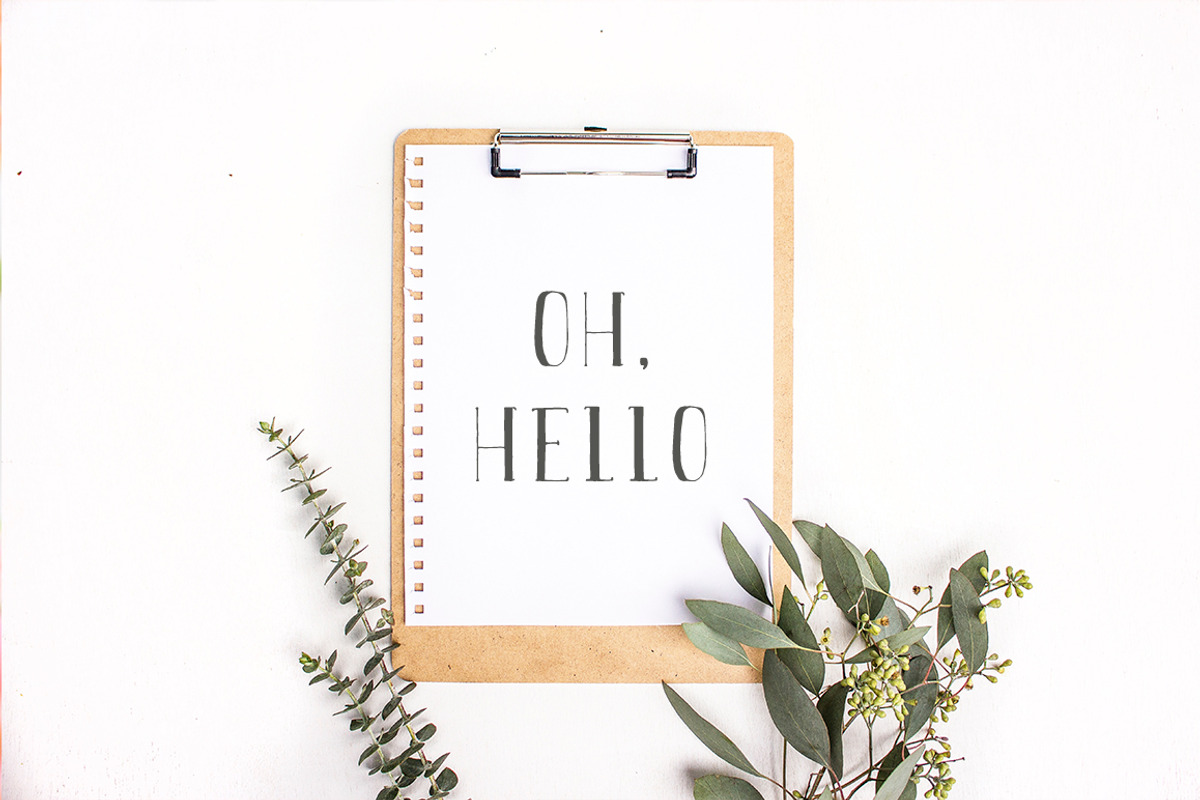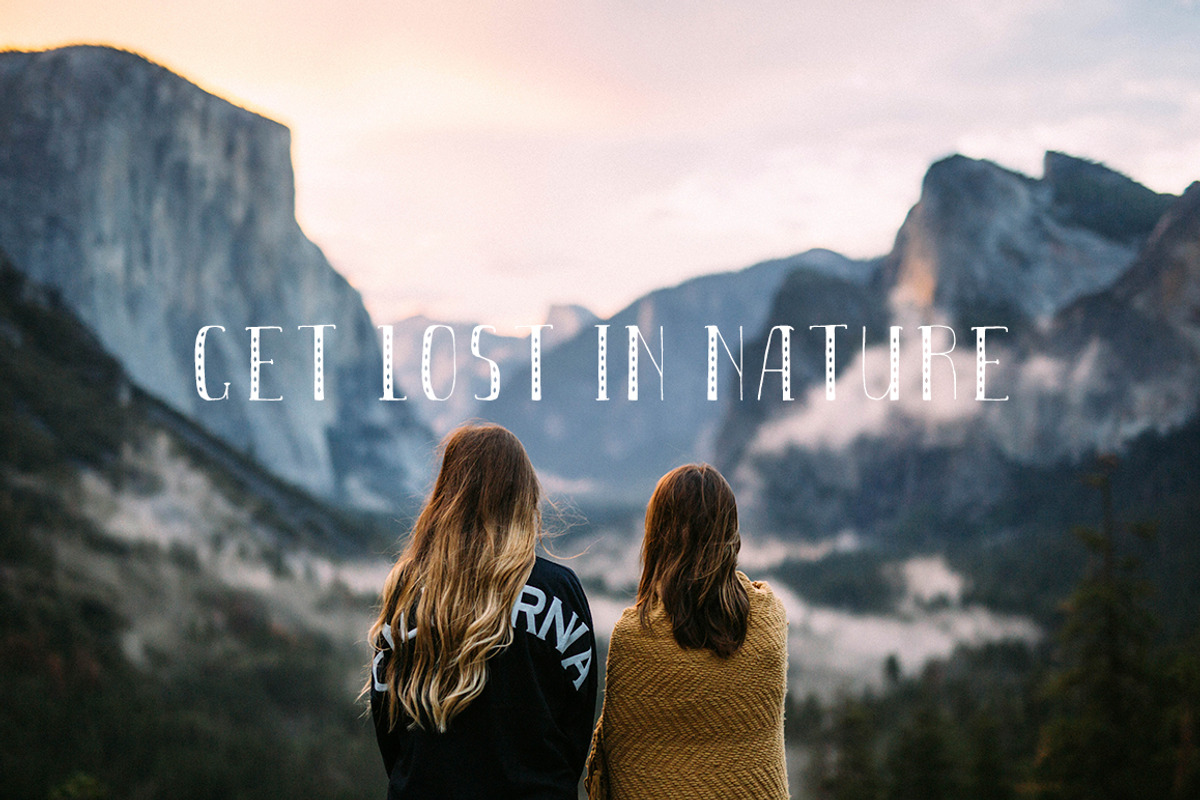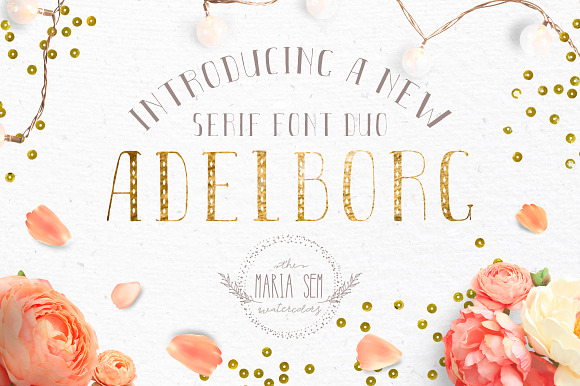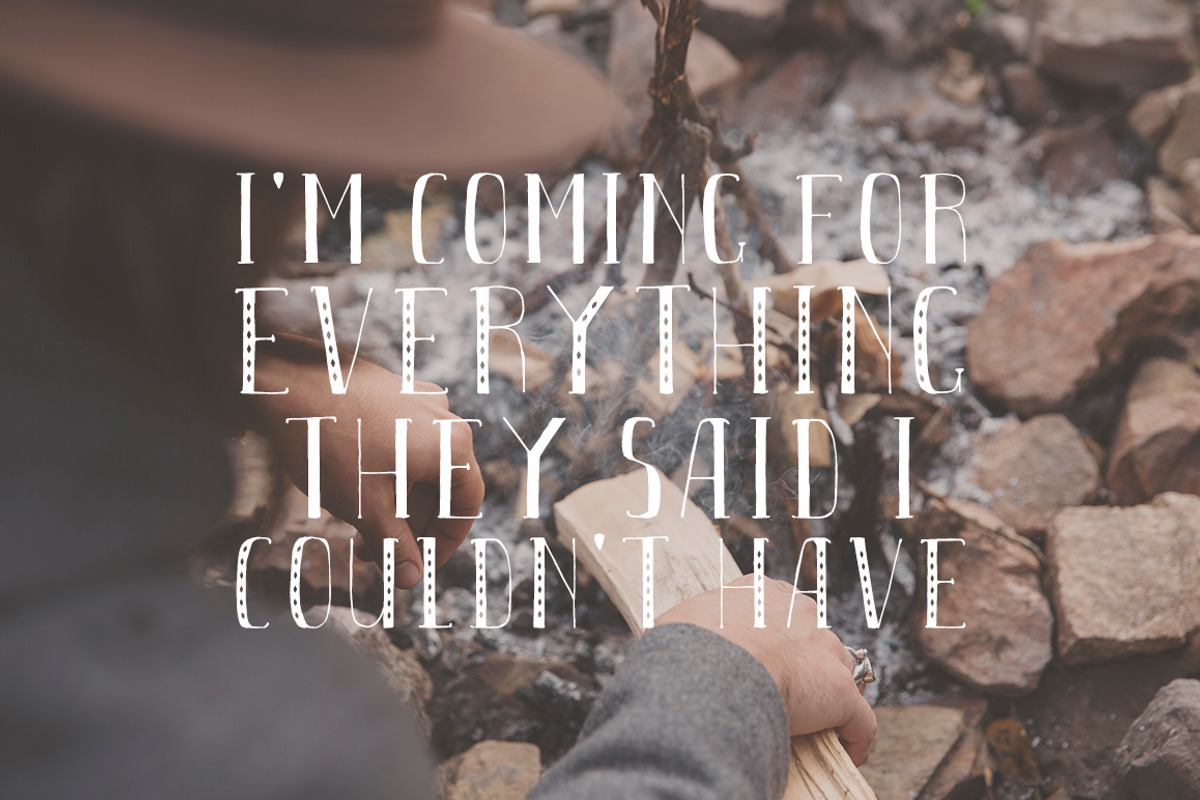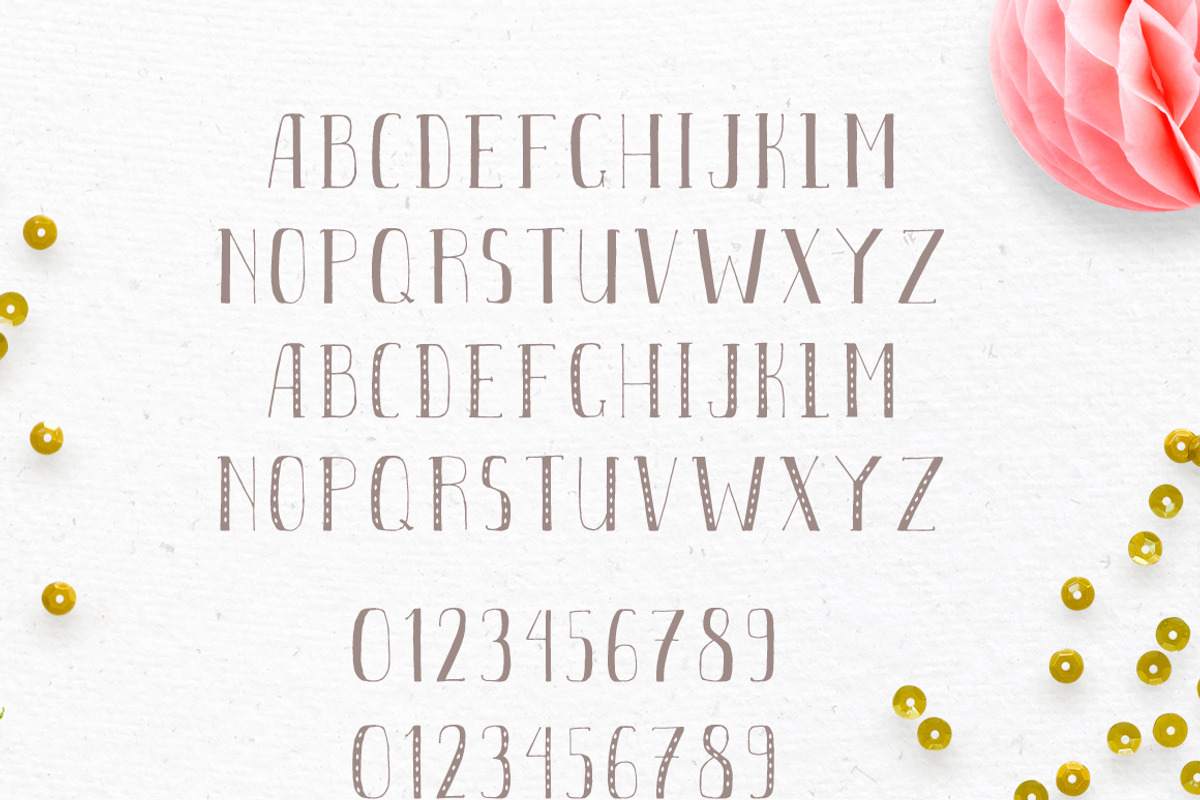
Adelborg font duo
Adelborg is a cute font with two variations : basic and decorated. This is a handmade font , looks rustic and very pretty. Adelborg will look gorgeous on all your designs, wedding invites, product packaging or simply as a stylish text overlay to any background image.
Font supports international characters, which you can see on the second preview image with all characters.
Adelborg font duo by Maria Sem fits naturally into Branding, posters, packaging, typography.